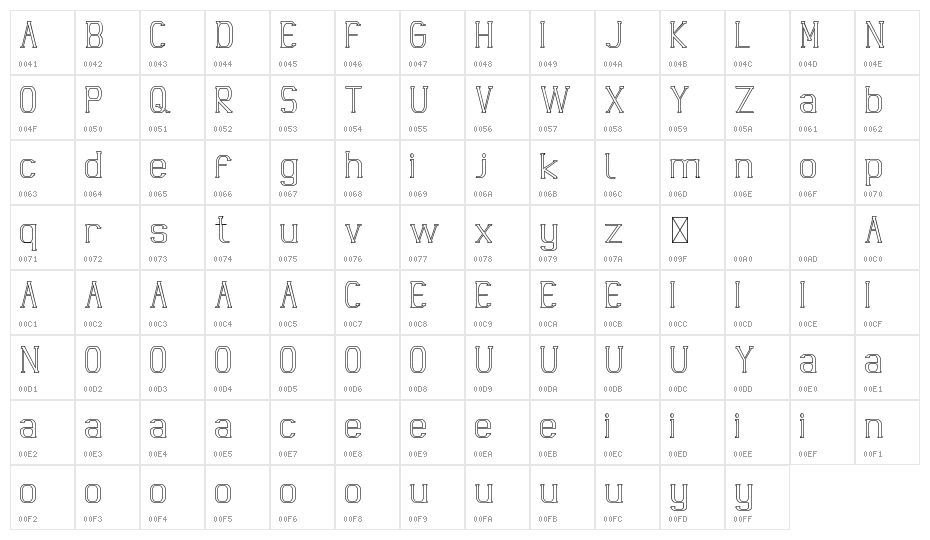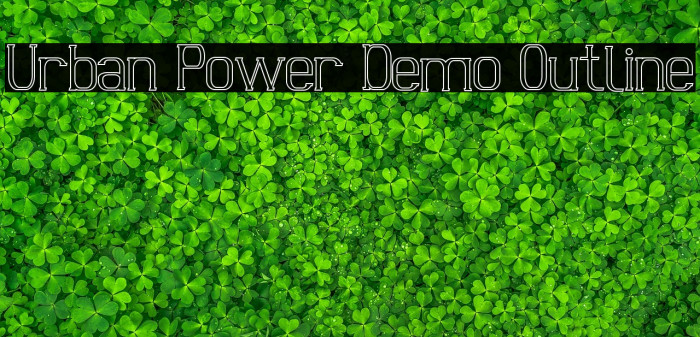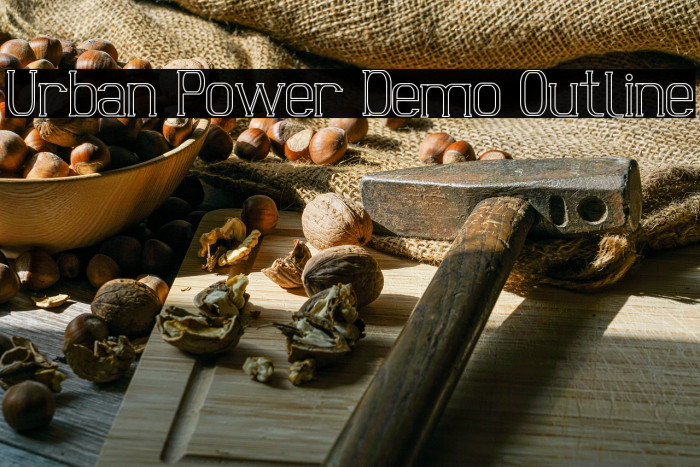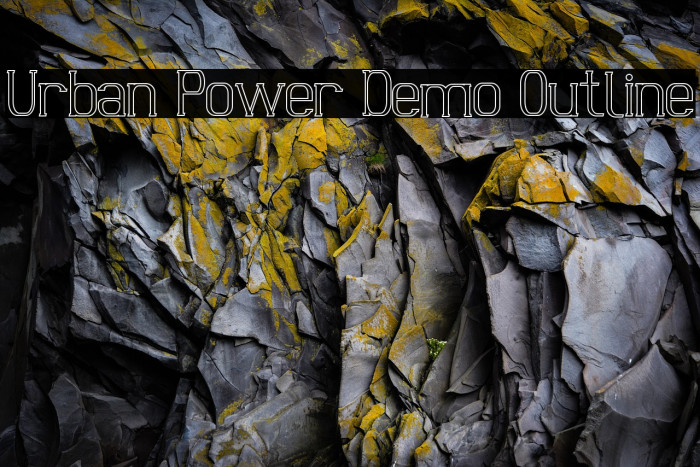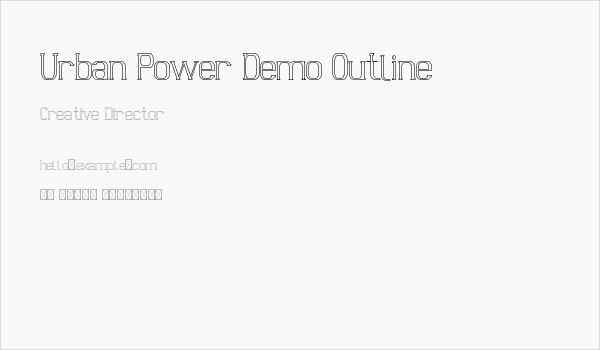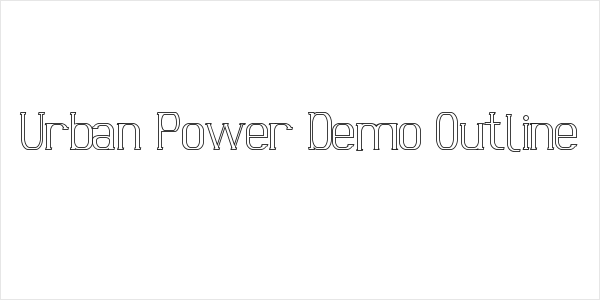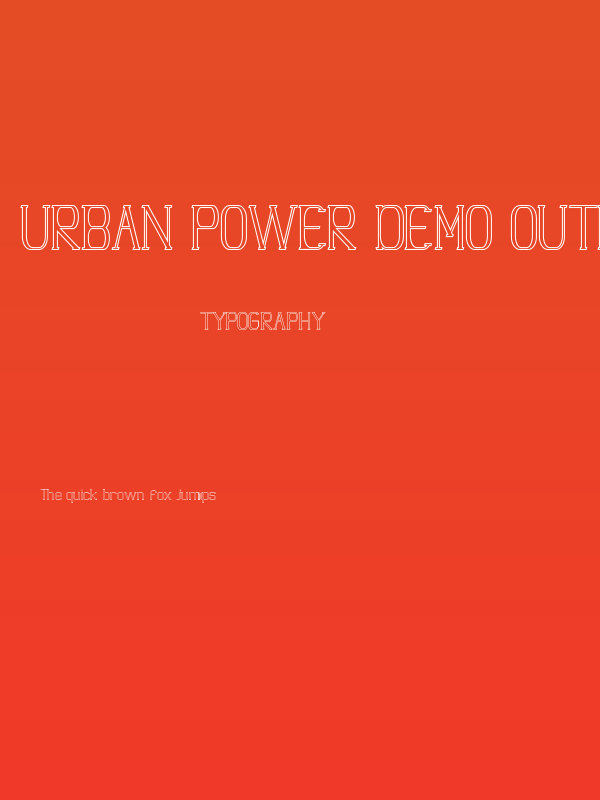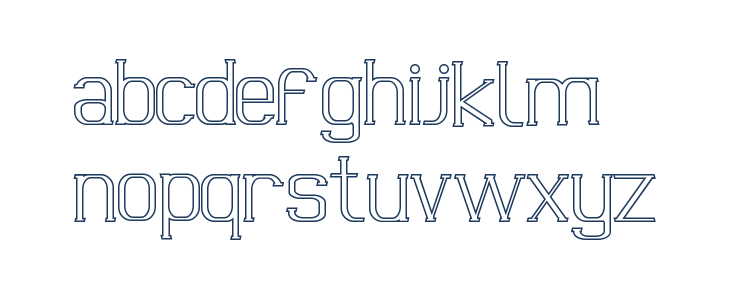
Urban Power Demo Outline Font
Urban Power Demo Outline Description
This font features a unique outline style that combines modern aesthetics with a geometric structure. The uppercase and lowercase letters are designed with a consistent line thickness, creating a cohesive look across the alphabet. The characters have a slightly condensed appearance, which adds to their modern appeal. The font's outline design gives it a distinctive, airy feel, making it stand out in various design contexts. The numerals and special characters maintain the same stylistic approach, ensuring uniformity throughout. This font is ideal for projects that require a contemporary and eye-catching typeface.